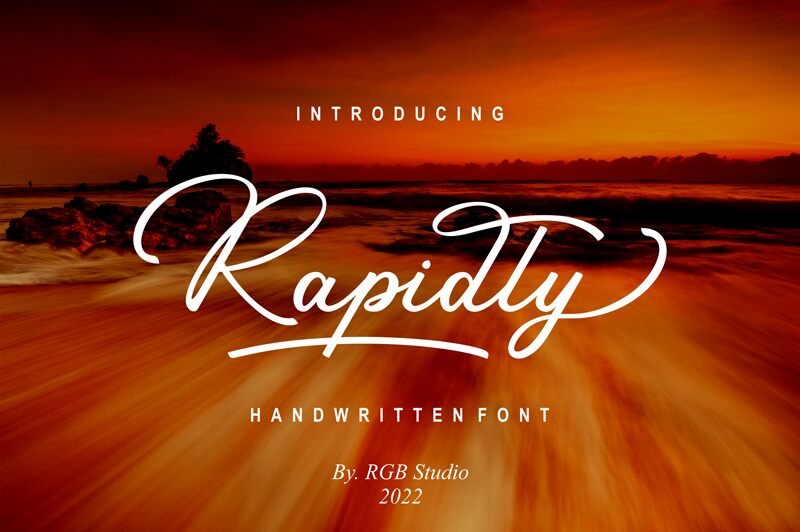
Rapidly, crafted by RGB Studio, is an embodiment of elegance in the realm of handwritten script typefaces. With its stylish signature flair, this font dances across the page with a fashionable and super cool presence. Designed to mimic authentic handwriting, Rapidly brings a touch of personal charm that feels both natural and sophisticated.
Its aesthetic appeal lies in the fluid continuity between characters, lending an organic energy to textual presentations. The unique personality of Rapidly makes it an excellent choice for branding projects, product packaging, and fashion-forward advertising campaigns where a touch of human warmth is desired. Whether used in digital media or print, Rapidly ensures that your message is conveyed with a bespoke elegance that captures attention and holds it effortlessly.
Rapidly